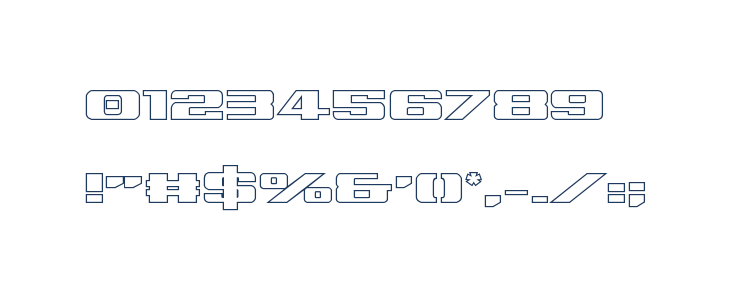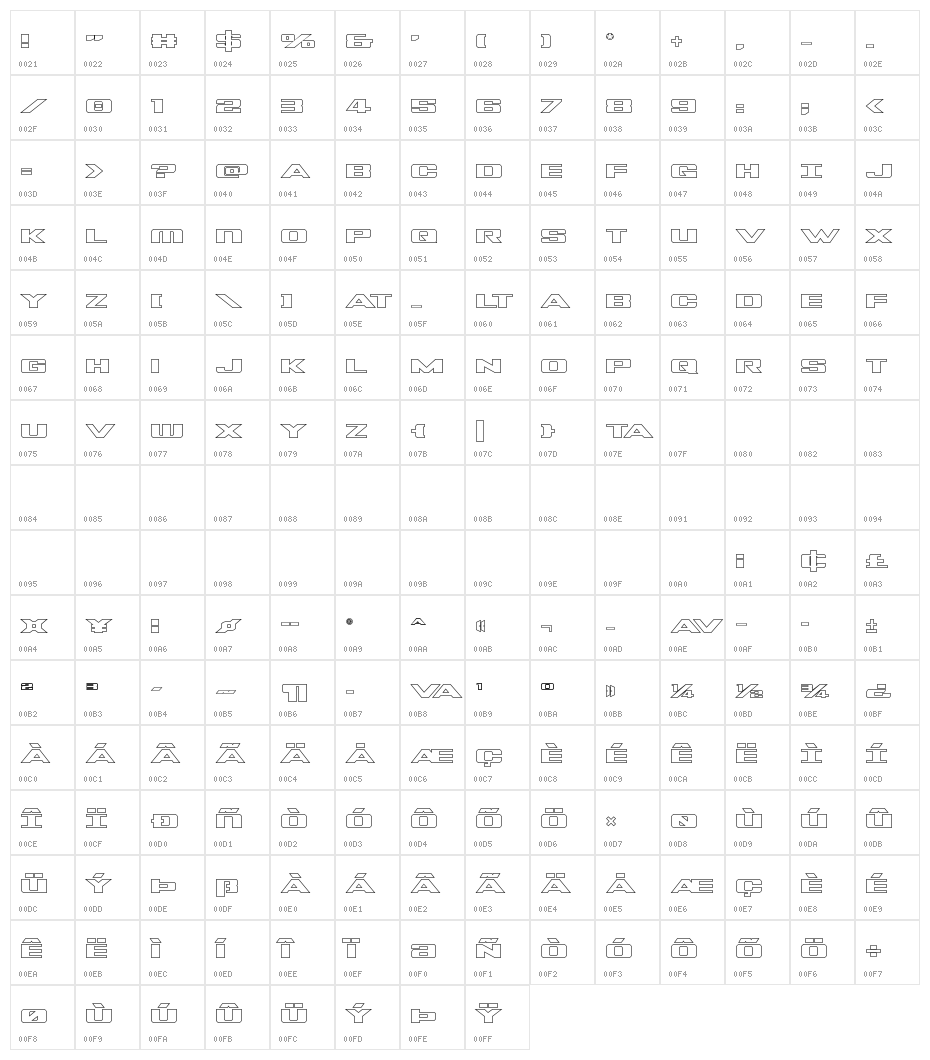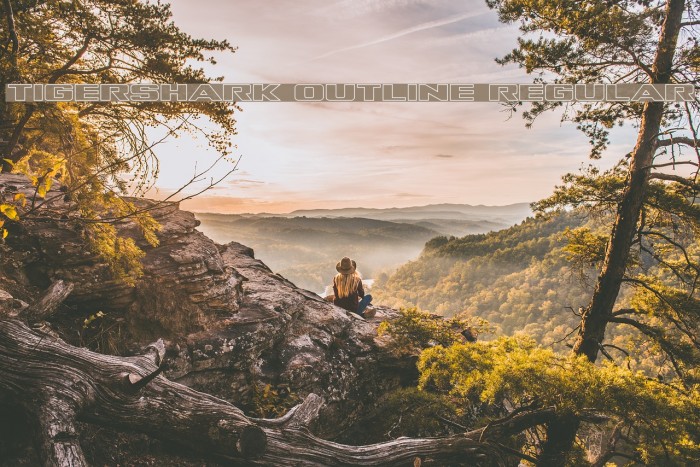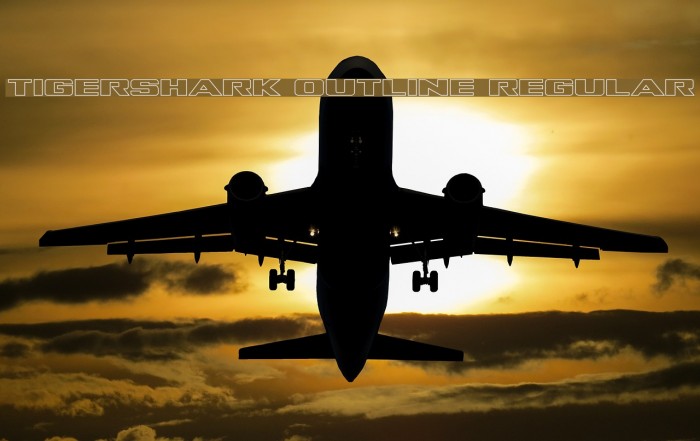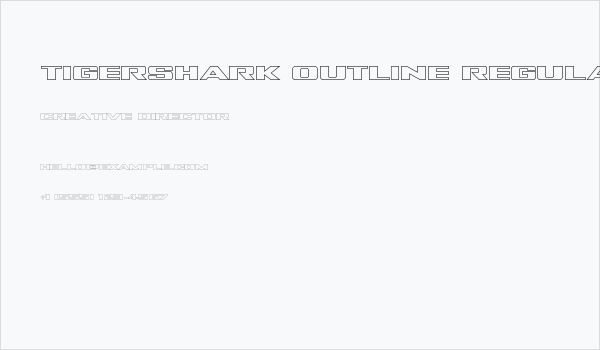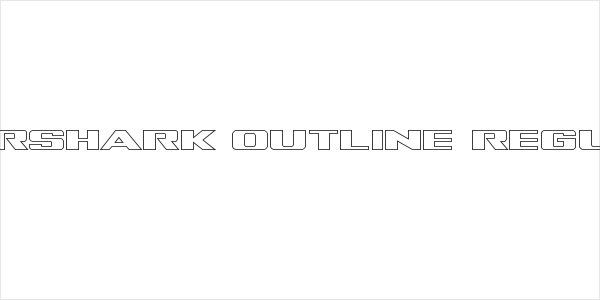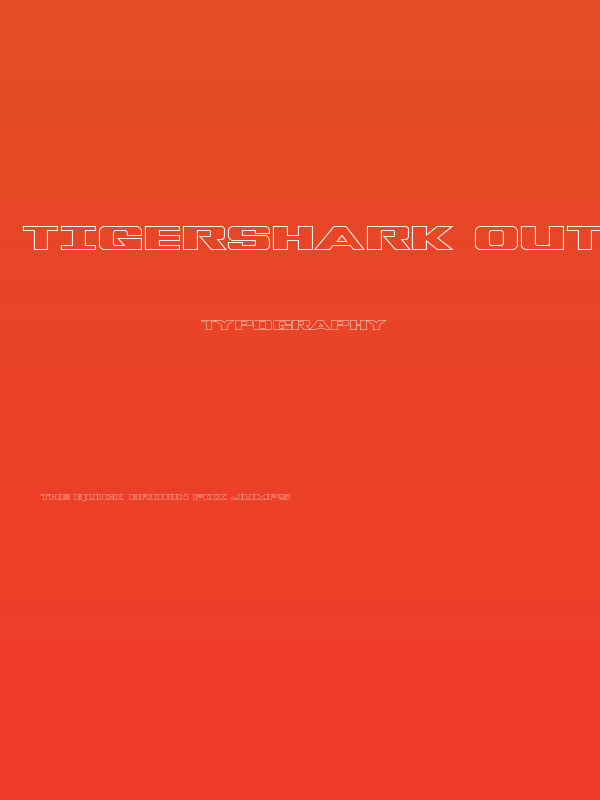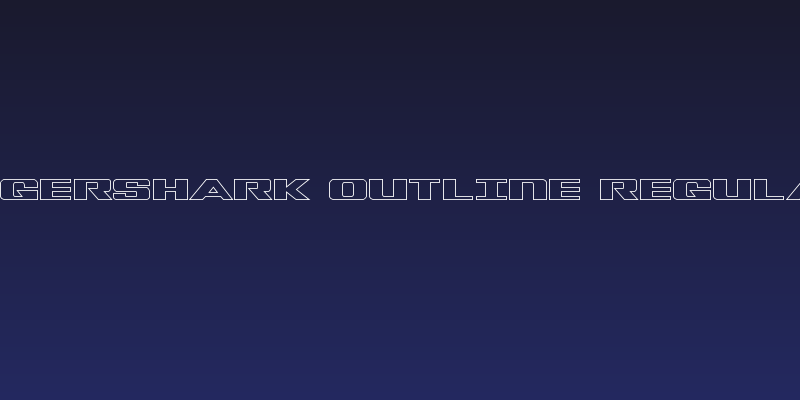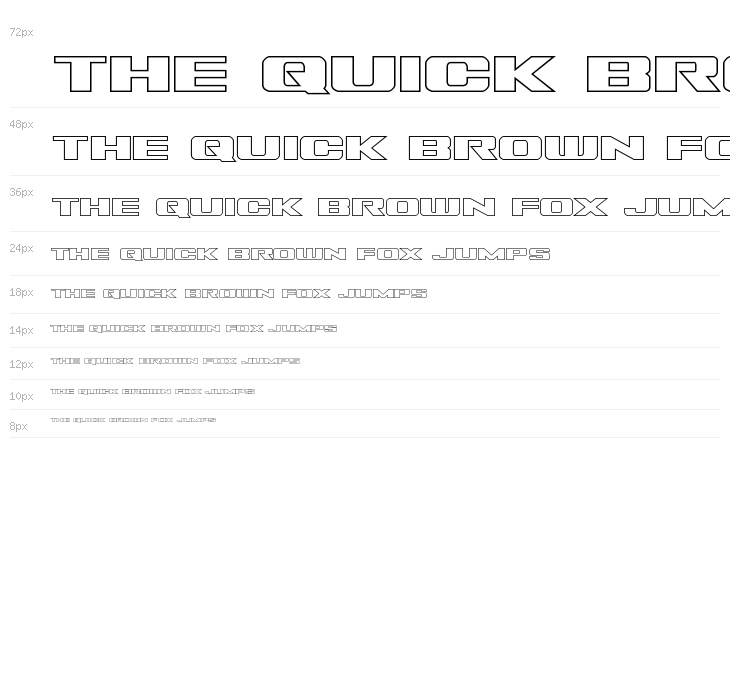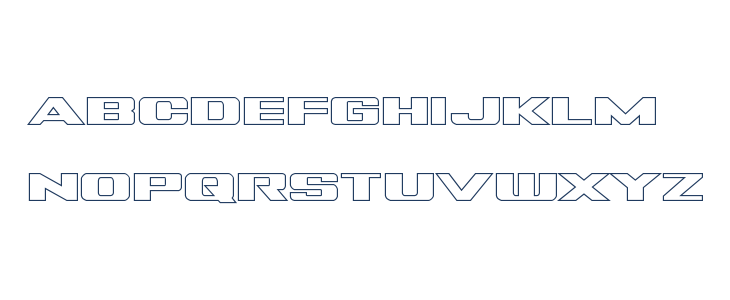
Tigershark Outline Regular Font
Tigershark Outline Regular Description
This font features a bold, geometric outline style that gives it a modern and futuristic appearance. The characters are constructed with sharp angles and clean lines, creating a sense of precision and strength. The uppercase and lowercase letters maintain a consistent height, while the numerals and special characters are designed to match the overall aesthetic. The outline effect adds a unique dimension, making it stand out in various design contexts. This font is ideal for projects that require a strong visual impact, such as branding, posters, and digital media.